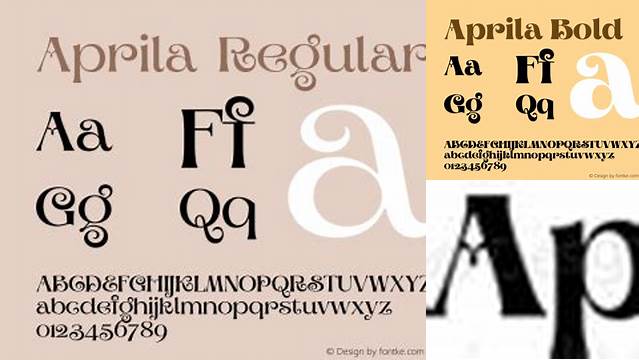
Introduction: Unveiling the Allure of Aprila Font
Hey guys! Are you on the hunt for that perfect font to elevate your design projects? Look no further! In this comprehensive guide, we're diving deep into the world of Aprila Font, a typeface that exudes elegance and modernity. This guide will cover everything you need to know about Aprila Font, including its unique characteristics, its versatility in various design applications, and, most importantly, how you can get your hands on a free download. So, buckle up and let's explore the captivating world of Aprila Font!
Aprila Font is not just another typeface; it's a statement. It's a carefully crafted design that balances sophistication with readability, making it an excellent choice for a wide array of projects. Whether you're designing a sleek website, crafting compelling marketing materials, or adding a touch of class to your personal projects, Aprila Font has something to offer. Its clean lines and contemporary aesthetic make it a standout choice for designers who want to make a lasting impression. We'll delve into the specifics of what makes Aprila Font so special, from its kerning and spacing to its various weights and styles. You’ll discover why this font has become a favorite among design professionals and hobbyists alike. Furthermore, we'll walk you through the process of finding legitimate sources for a free download of Aprila Font, ensuring you avoid any potential pitfalls like malware or copyright infringements. Because, let’s be honest, nobody wants those headaches! So, stick around as we unravel the magic behind Aprila Font and show you how to incorporate it into your design toolkit. By the end of this guide, you'll be well-equipped to use Aprila Font to its full potential, creating stunning visuals that captivate and engage your audience. Get ready to unleash your creativity with Aprila Font! Let’s jump in and get started on this exciting font journey together!
What Makes Aprila Font So Special?
So, what exactly sets Aprila Font apart from the sea of other typefaces out there? It's more than just its aesthetic appeal; it's about the intricate details that combine to create a truly exceptional font. Aprila Font's uniqueness lies in its perfect blend of modern sophistication and timeless elegance. The clean lines and well-balanced letterforms give it a contemporary feel, while the subtle curves and refined details add a touch of classic charm. This duality makes Aprila Font incredibly versatile, fitting seamlessly into a wide range of design styles and applications. One of the key aspects that makes Aprila Font special is its readability. The letter spacing and kerning have been meticulously adjusted to ensure that the text is easy to read, even at smaller sizes. This is crucial for body text in websites, articles, and other long-form content where legibility is paramount. Poorly designed fonts can strain the eyes and make reading a chore, but Aprila Font prioritizes the reader's experience, making it a joy to engage with the text. But the versatility of Aprila Font doesn't stop there. It also boasts a range of weights and styles, from light and airy to bold and assertive. This allows designers to create visual hierarchy and add emphasis to their designs. Whether you need a delicate font for a minimalist design or a strong, attention-grabbing typeface for a headline, Aprila Font has you covered. Imagine using the lighter weight for a sophisticated invitation, the regular weight for body text in a brochure, and the bold weight for eye-catching headings on a poster. The possibilities are endless! Furthermore, Aprila Font often includes a variety of alternate characters and glyphs, providing even more creative options. These subtle variations can add a unique flair to your designs, setting them apart from the crowd. Think of it as a secret weapon in your design arsenal, allowing you to customize the font to perfectly match your vision. All these elements combine to make Aprila Font a truly special typeface. It's a font that not only looks beautiful but also functions flawlessly, making it a valuable asset for any designer. So, if you're looking for a font that's both elegant and versatile, Aprila Font is definitely worth considering.
Where Can You Use Aprila Font?
The beauty of Aprila Font lies in its adaptability. It's not a one-trick pony; this font can shine in a multitude of design scenarios. From digital platforms to print media, Aprila Font seamlessly integrates into various projects, adding a touch of sophistication and professionalism. Let’s explore some specific areas where Aprila Font truly excels. First off, websites are a prime candidate for Aprila Font. Its clean and legible letterforms make it an excellent choice for body text, ensuring that your website content is easy to read and engaging. Imagine a sleek, modern website using Aprila Font for its headlines and body text – the combination creates a polished and professional look that can captivate visitors. Furthermore, Aprila Font can be used in website navigation menus, calls to action, and other interactive elements, maintaining a consistent and visually appealing user experience. But Aprila Font's versatility extends beyond the digital realm. In the world of print design, it's a star player. Think about brochures, flyers, and posters – Aprila Font can bring a touch of elegance to these marketing materials. Its ability to convey both a sense of modernity and timelessness makes it perfect for creating impactful visual communications. Imagine a beautifully designed brochure using Aprila Font for its headings and body text, paired with stunning visuals – it's a recipe for success! Moreover, Aprila Font is an excellent choice for branding and logo design. A well-chosen font can significantly impact a brand's identity, and Aprila Font's sophisticated yet approachable personality makes it a great fit for a wide range of businesses. Whether you're designing a logo for a tech startup, a fashion brand, or a creative agency, Aprila Font can help you create a memorable and impactful visual identity. Consider a logo that uses Aprila Font's elegant letterforms in a unique and creative way – it's sure to leave a lasting impression. Beyond these applications, Aprila Font can also be used in personal projects, such as invitations, greeting cards, and resumes. Its versatility allows you to add a touch of professionalism and style to your personal communications. Imagine sending out wedding invitations using Aprila Font – the elegant typography will set the tone for a sophisticated and memorable event. In short, Aprila Font is a versatile workhorse that can adapt to a wide range of design needs. Whether you're working on a website, a print project, a logo, or a personal creation, this font can help you elevate your design and create a lasting impression.
Conclusion: Embrace the Elegance of Aprila Font
So, guys, we've reached the end of our comprehensive journey into the world of Aprila Font. We've explored its unique characteristics, its versatility in various design applications, and, most importantly, how you can find a free download and start using it in your projects. It's clear that Aprila Font is more than just a typeface; it's a design asset that can elevate your work to new heights. By now, you should have a solid understanding of what makes Aprila Font so special. Its blend of modern sophistication and timeless elegance makes it a versatile choice for a wide range of design needs. Whether you're crafting a sleek website, designing impactful marketing materials, or adding a personal touch to your projects, Aprila Font has something to offer. We've also discussed the importance of downloading fonts from legitimate sources and respecting font licenses. Finding a free download of Aprila Font is possible, but it's crucial to do your research and ensure you're not violating any copyright laws or exposing your computer to malware. Reputable font foundries, distributors, and designer portfolios are your best bet for finding safe and legal font downloads. Furthermore, we've walked through the step-by-step process of installing and using Aprila Font on your computer. With the knowledge you've gained from this guide, you can confidently integrate Aprila Font into your design workflow and start creating stunning visuals. Remember, choosing the right font is a critical aspect of design. It can impact the readability, the overall aesthetic, and the message you're trying to convey. Aprila Font's elegance and versatility make it a valuable addition to any designer's toolkit. So, go ahead and embrace the elegance of Aprila Font! Experiment with its various weights and styles, and see how it can transform your designs. Whether you're a seasoned design professional or just starting out, Aprila Font can help you create impactful and memorable visuals. Thanks for joining me on this font adventure, and happy designing!